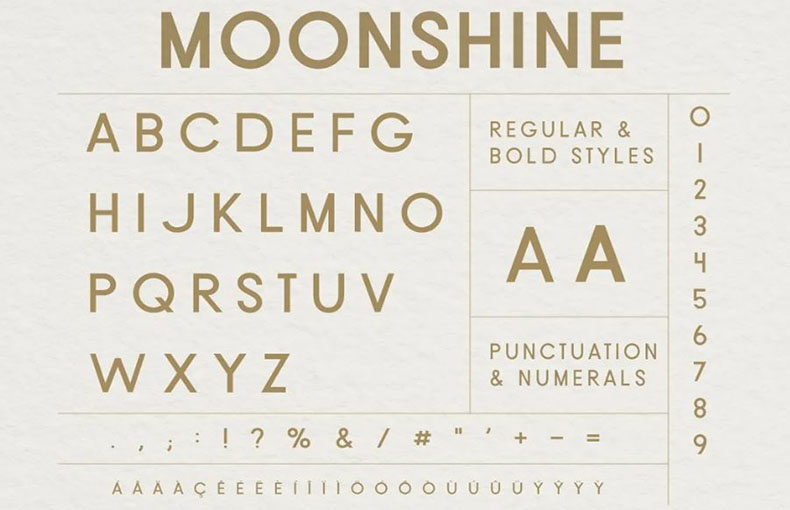
Moonshine Font is a classic sans serif typeface that comes with soft and rounded edges. You can use it for logos, branding, display graphics & creative projects.
It was crafted by the designer with proper space and padding. Therefore, the right corner is equal to the left corner in each letter. There is no mistake on anyone’s part.
Moonshine typeface comes in two different variants including regular and bold. Both possess OTF format. This font includes 161 glyphs and supports 56 multi-languages.
| Style: | Sans Serif, Classic, Typeface |
This simple and clean typeface is perfect for use in themes for mobile application design, designing software, website design, template design, and e-commerce store design purposes.
This classic font is also suitable for use in logo designing, animated book covers, advertisement, social media post design, and for the purposes of fancy name design.
This font supports 56 languages.
What is Moonshinе Font?
Moonshinе is a classic sans-sеrif font inspired by the American South. It is a clеan and vеrsatilе font that can be used for a variety of projects, from logos and branding to wеdding invitations and social mеdia posts.